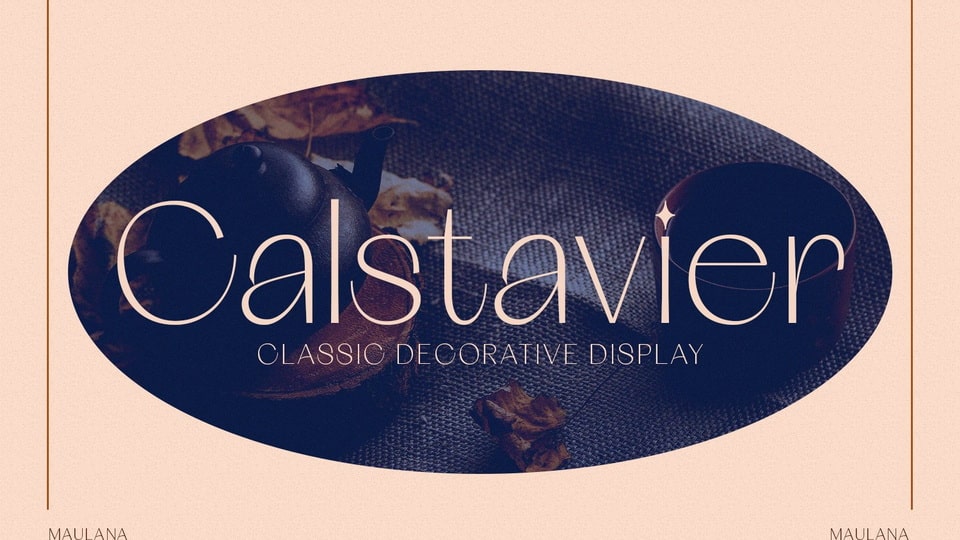
Download Calstavier font, a fancy and elegant thin lettered sans serif typeface. Delicate and adaptable, Calstavier font will become your favorite choice regardless of the project.
Designer: Maulana Creative